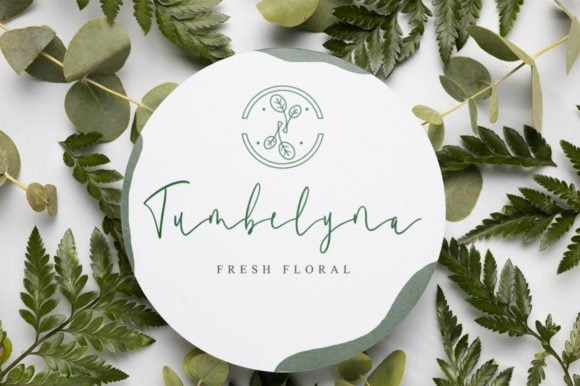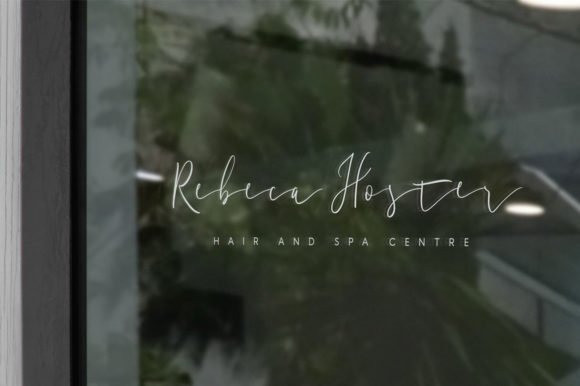
Canonatia Signature Font
Canonatia– Handwritten Font  is a new modern & stylish handwritten font. I’ts Perfect for logo,branding, invitation, tittle, wedding designs, social media posts, advertisements, product packaging, product designs, label, photography, watermark, special event,magazine,web design,etc